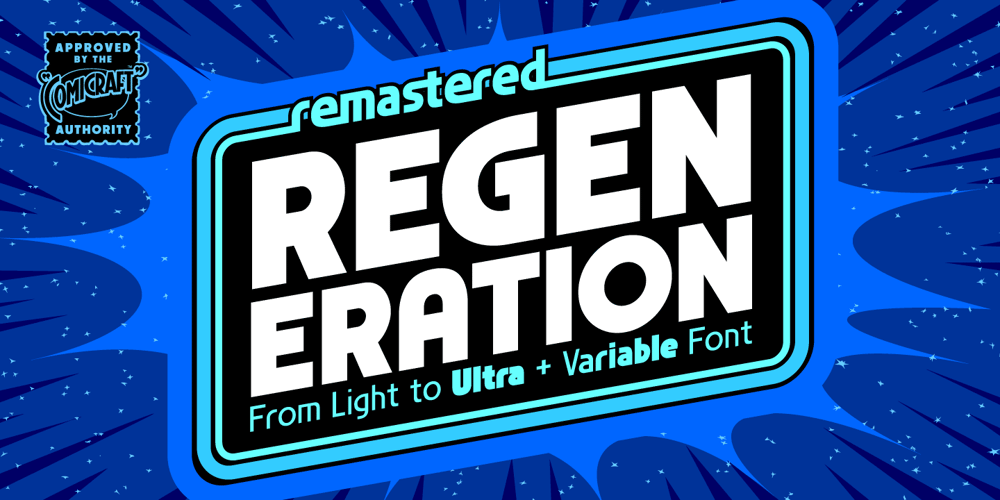
Regeneration Font Family was designed by John Roshell and published by Comicraft. Regeneration contains 14 styles and family package options. It’s the end, but the moment has been prepared for… the Time War is over and things are wearing a bit thin, time for a new face, a new body, a new companion for our Timelord font… a REGENERATION!